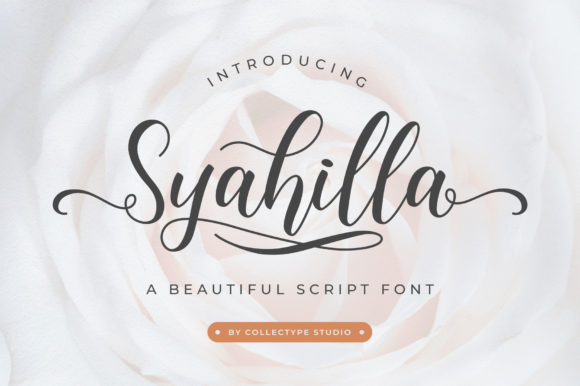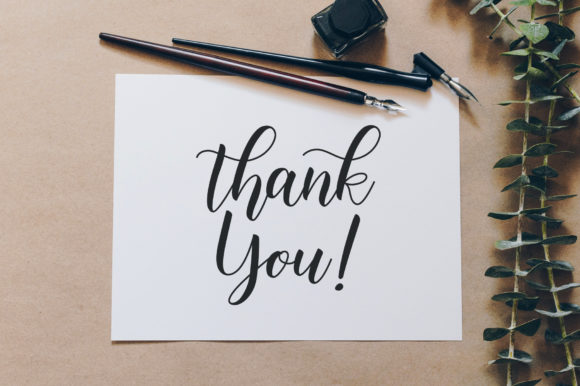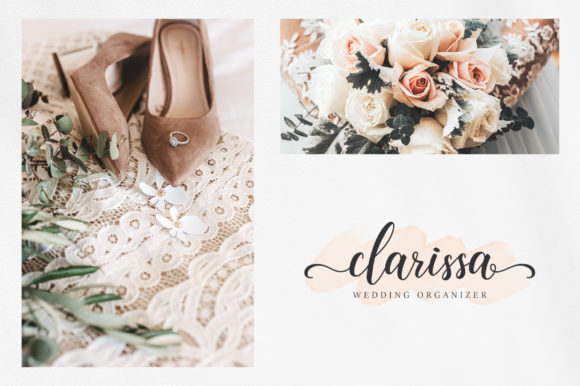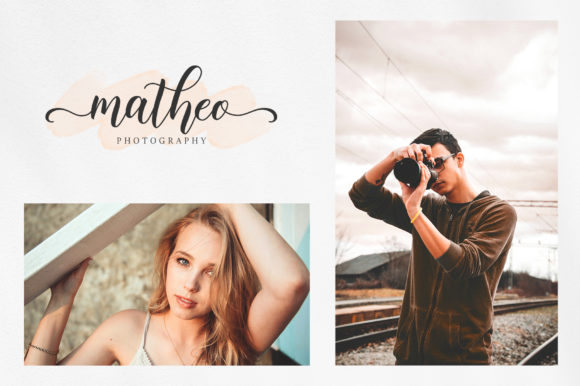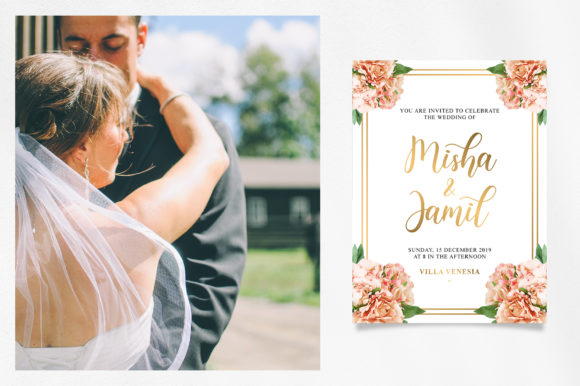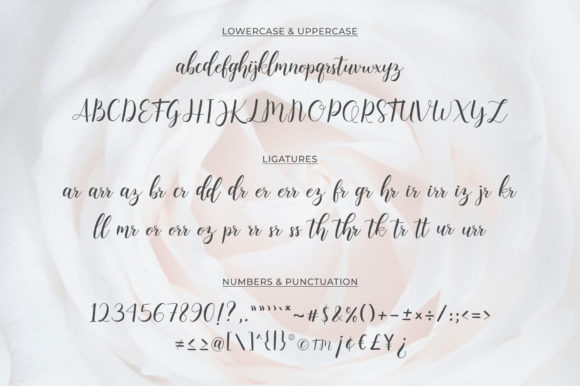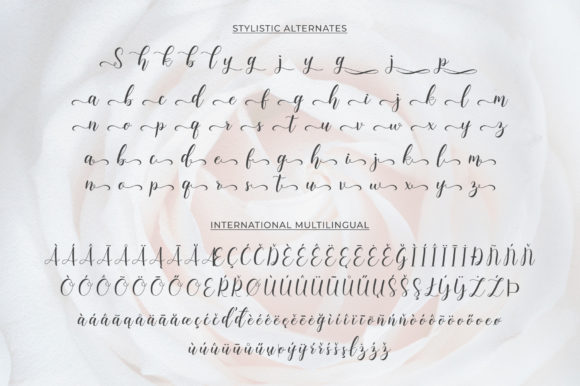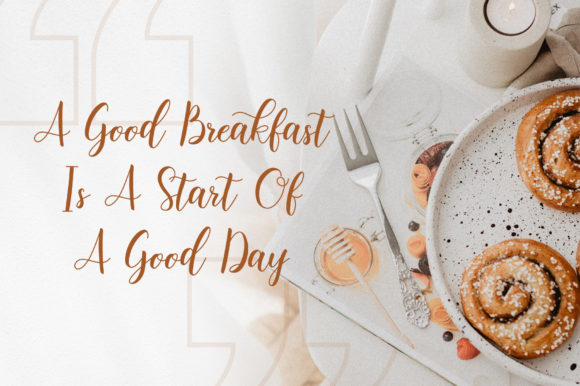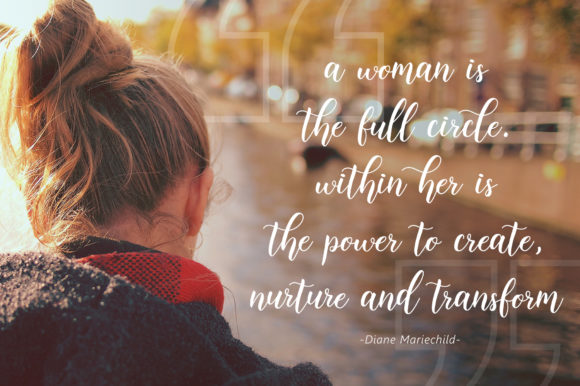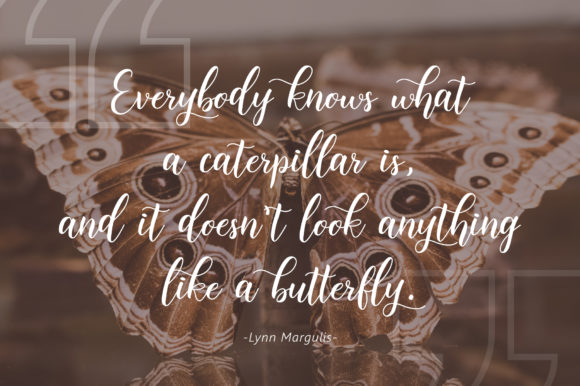
HomeScript FontsSyahilla Script Font Script Fonts Syahilla Script Font FacebookXPinterestWhatsApp Syahilla Script Font Poster 2 Syahilla Script Font Poster 3 Syahilla Script Font Poster 4 Syahilla Script Font Poster 5 Syahilla Script Font Poster 6 Syahilla Script Font Poster 7 Syahilla Script Font Poster 8 Syahilla Script Font Poster 9 Syahilla Script Font Poster 10 About Syahilla Script Font Syahilla is a sweet and friendly handwritten font with a cool style. Get inspired by its modern look! DOWNLOAD NOW People also explored Stella Font Pouline Katherine Font July Font Fragile Font Hello Aprilio Font Roll Cake Font Secret Ingredient Font Lightbound Font 328 0 TagsSyahilla Script Font Previous articleAdonessia FontNext articleJackpot Script Font LEAVE A REPLY Cancel reply Comment: Please enter your comment! Name:* Please enter your name here Email:* You have entered an incorrect email address! Please enter your email address here Website: Save my name, email, and website in this browser for the next time I comment. Personal Use Free Hagia Signal Personal Use Free Read more about this font Anggraini Personal Use Free Read more about this font Manbow Personal Use Free Read more about this font Daisy Script Personal Use Free Read more about this font BLOG 5 Fonts That Will Dominate Design Trends in 2026 5 Fonts for 2026 That Will Dominate Design Trends Typography plays a critical role in visual communication, and as we look ahead to 2026, it’s... Elegant Wedding Invitation Fonts – Handwritten & Script Fonts Top 10 Handwritten Fonts That Elevate Your Designs Free vs Paid Fonts: Why Investing in Premium Fonts Is Worth It